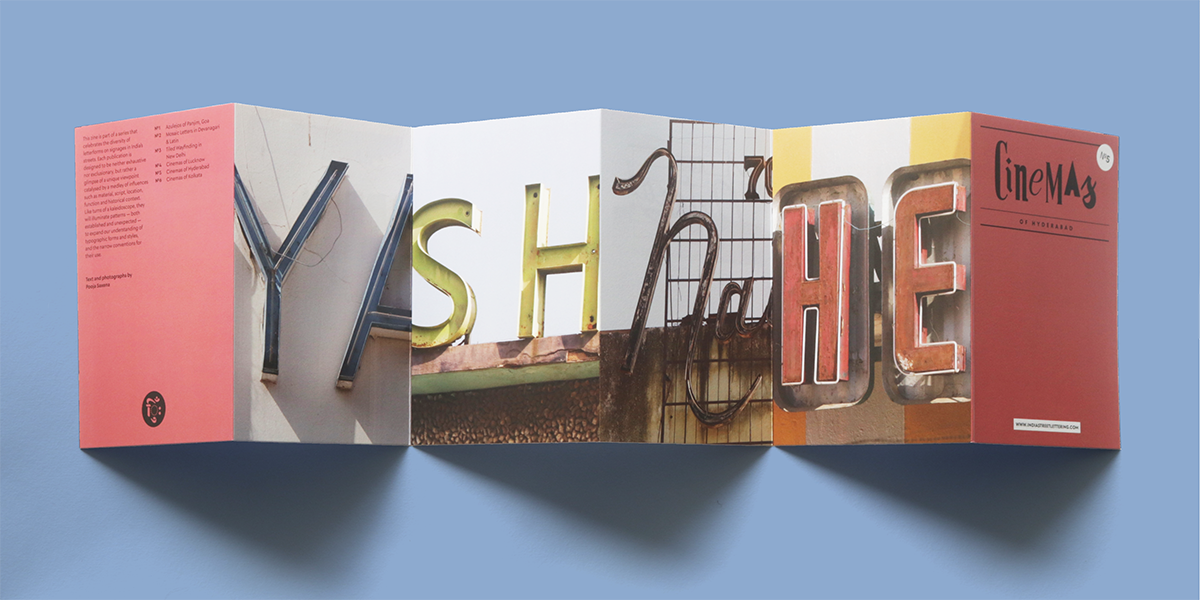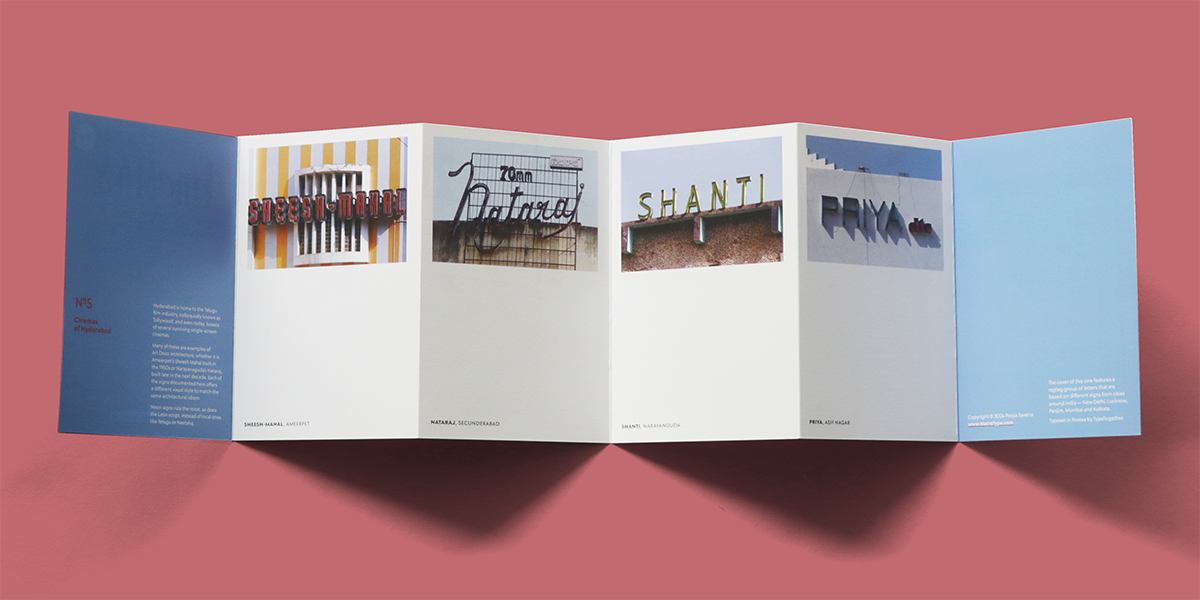
India Street Lettering zines celebrate the diversity of letterforms on signages in India’s streets. Like turns of a kaleidoscope, they illuminate patterns — established and unexpected — to expand our understanding of typographic forms and styles, and conventions for their use.
Based on the visual record of public signage in the country that is housed under India Street Lettering, the theme of each zine is catalysed by a medley of influences such as material, script, location, function and historical context. Since 2023, two batches have been published: the first focused on the use of tiles in street lettering, and the second features cinema signs from Lucknow, Hyderabad and Kolkata.
№ 6 Cinemas of Kolkata
Kolkata holds a special place in India’s film history — the first dedicated cinema in the country was built here. Even though that has been long-demolished, there are still many cinemas here whose signage can whet your typographic appetite.
№ 5 Cinemas of Hyderbad
Home to the Telugu film industry, Hyderabad still boasts of several surviving single-screen cinemas, each with its own unique sign, often in rendered neon. Explore them in this zine.
№ 4 Cinemas of Lucknow
Featuring signs in Latin and Devanagari, this set features everything from a cinema that goes by a different name than its architectural sign to a restored Art Deco gem with an unexpected sign.
№3 Tiled Wayfinding in New Delhi
An unexpected sighting of multi-script, monospaced letterforms in the wild in the form of fast-disappearing wayfinding signs in New Delhi.
№2 Mosaic Letters in Devanagari & Latin
Mosaic signs offer up an excellent opportunity to study how the vastly different letterforms of Devanagari and Latin scripts adapt to a limiting medium.
№1 Azulejos of Panjim, Goa
Signages on hand-painted, glazed tiles abound in the streets of Panjim as a striking visual reminder of the lasting Portuguese influence in India’s smallest state.